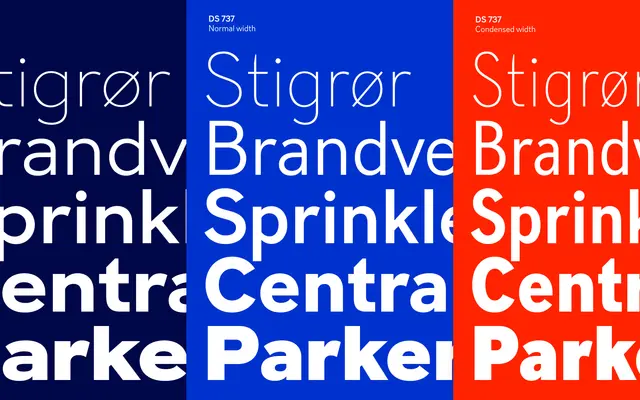
DS 737 Expanded
An expanded display typeface from Playtype, with little contextual information available from the page content.
DS 737 Expanded is offered by Playtype, a Copenhagen-based type foundry known for considered and characterful type design. The page content provided does not describe the typeface in any meaningful detail, making a full assessment of its design qualities or intended use cases difficult. Based on its name and expanded designation, it appears to be a wide-set display face suited to headlines and large-scale applications.
The name and expanded designation suggest a wide-set display typeface; the page content offers no typographic detail, but the URL and naming convention point to a display-oriented expanded cut.